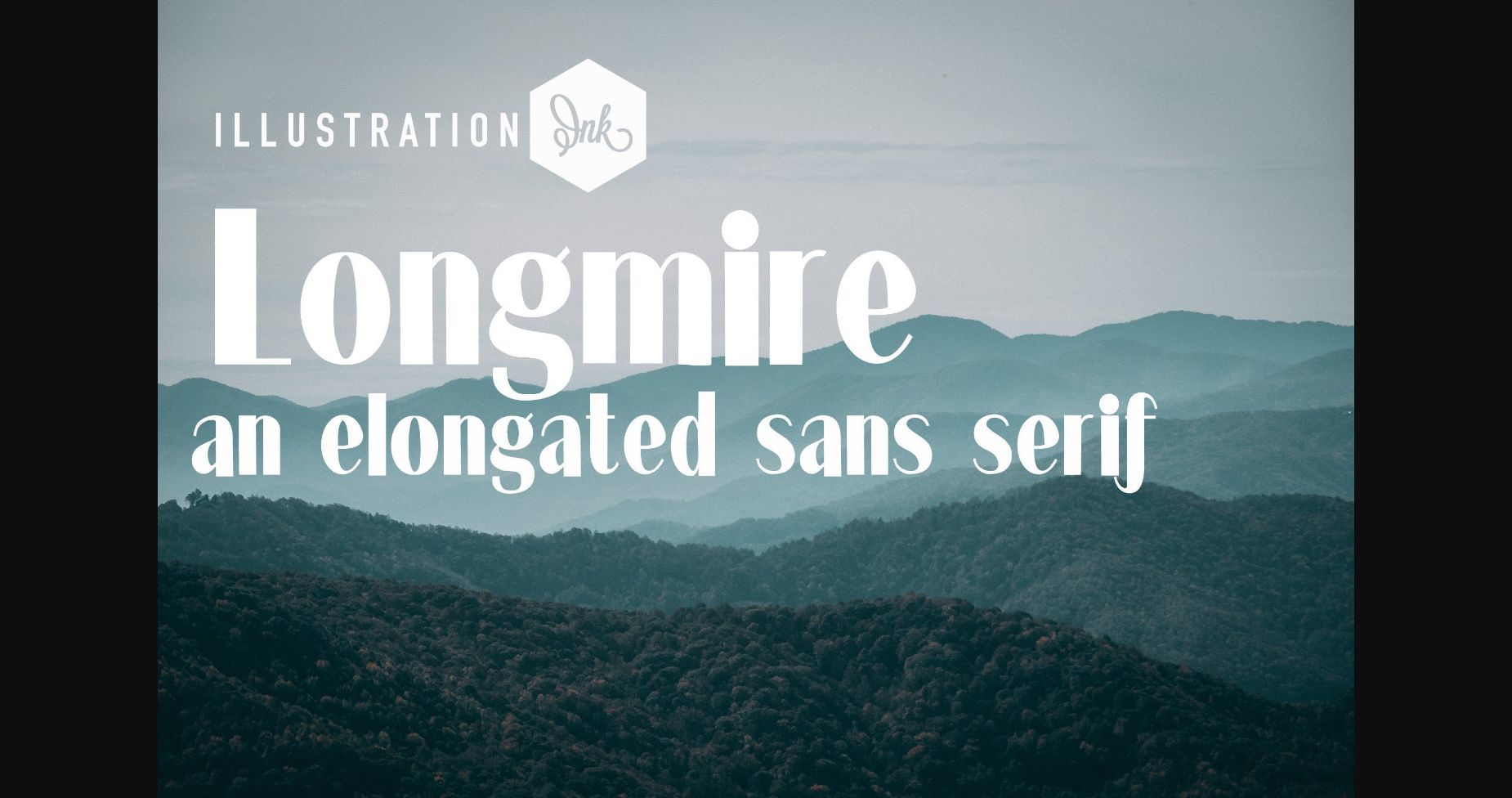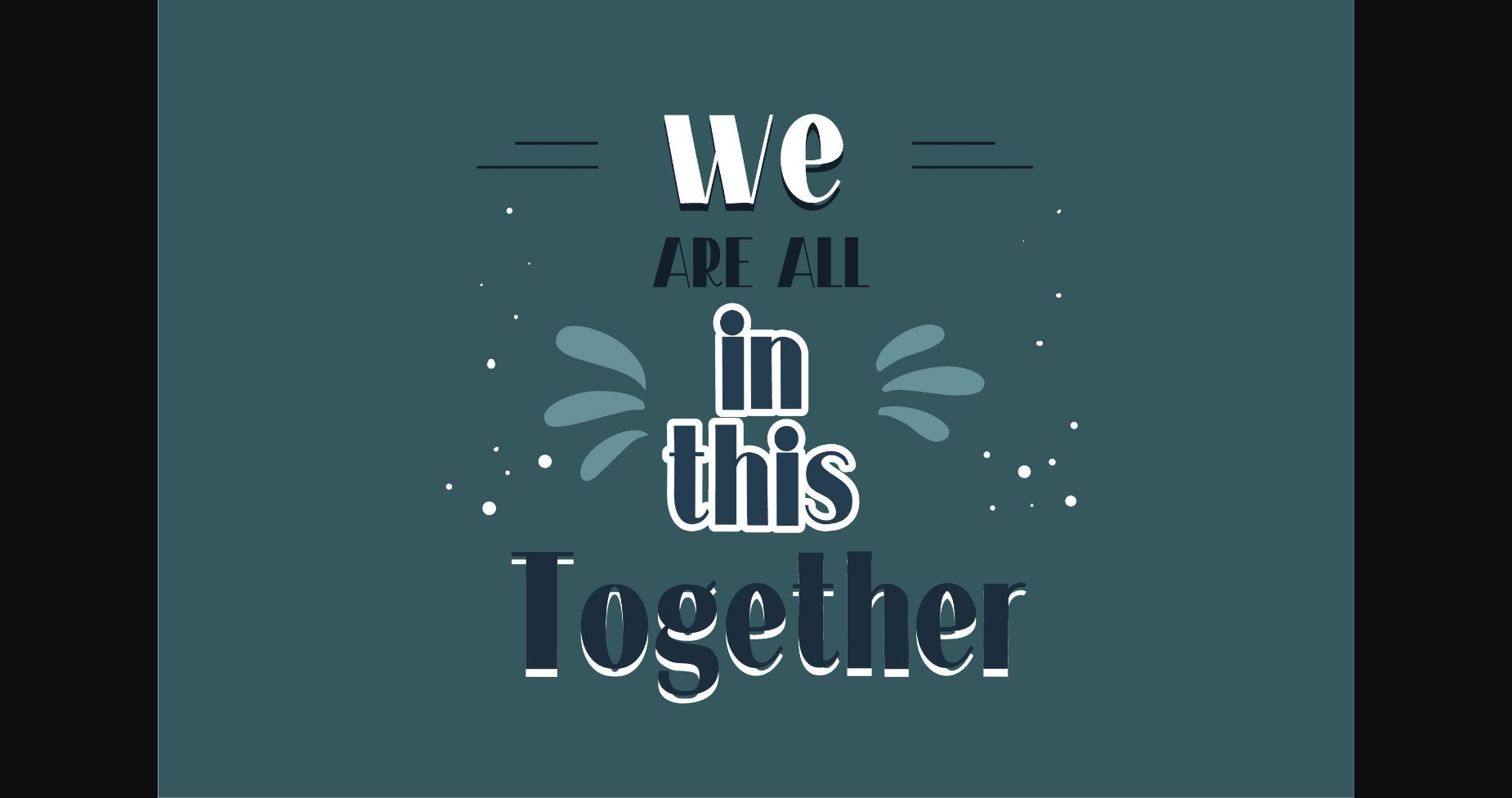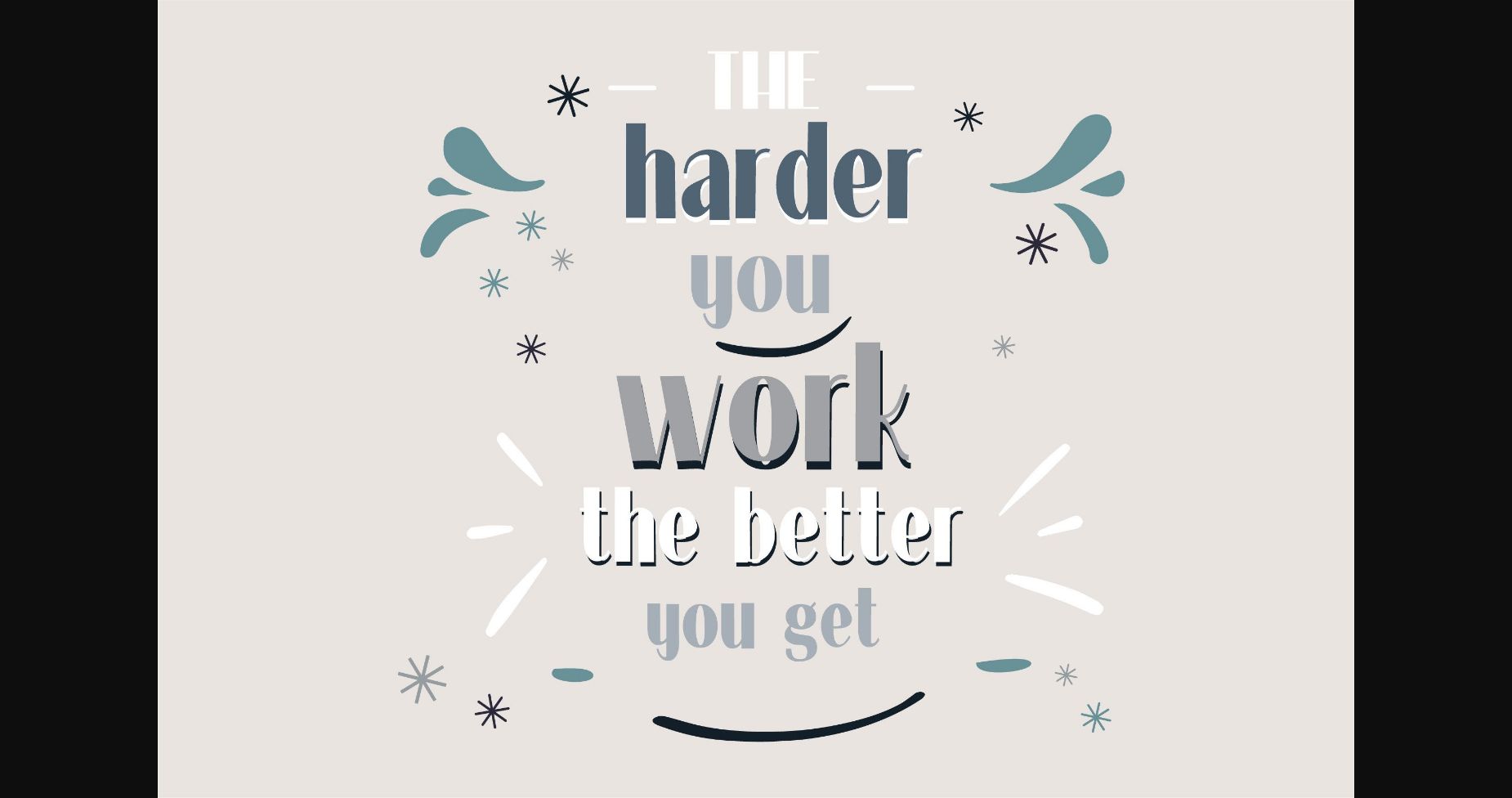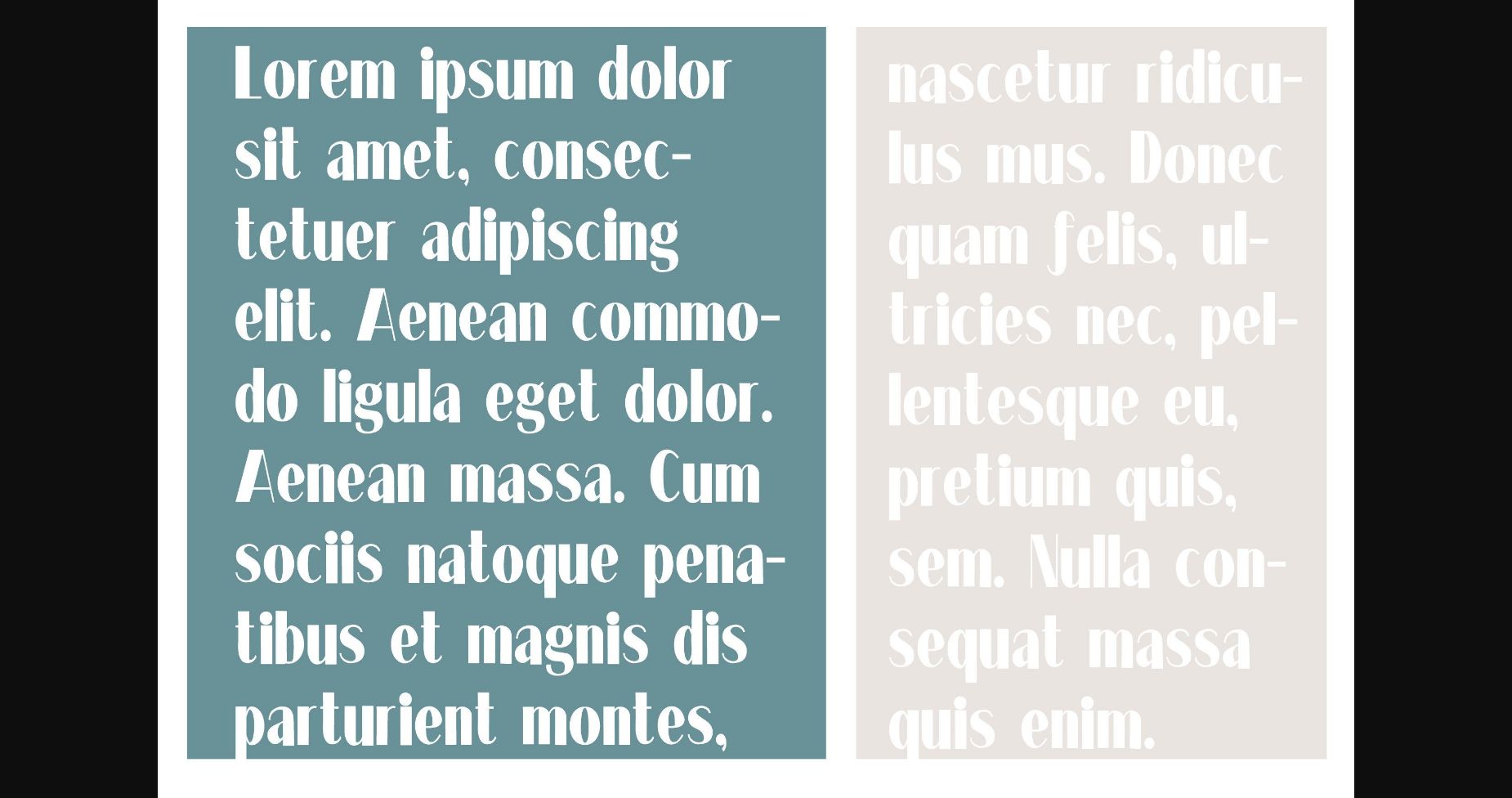
Longmire Font
About Longmire Font
This sans serif font is elongated with a mix of thick and thin lines. It is perfectly balanced and looks impeccable on huge displays or smaller ones. It is perfect for any creative idea!